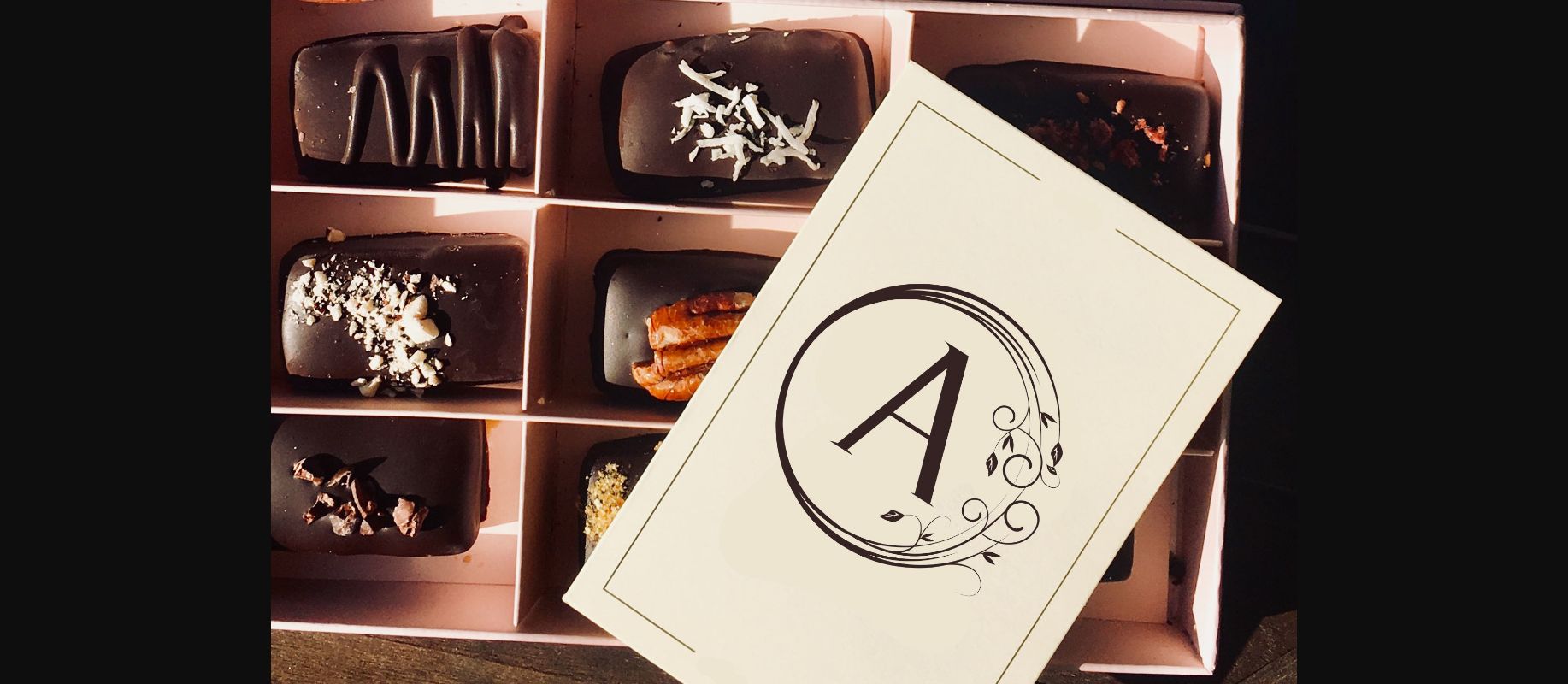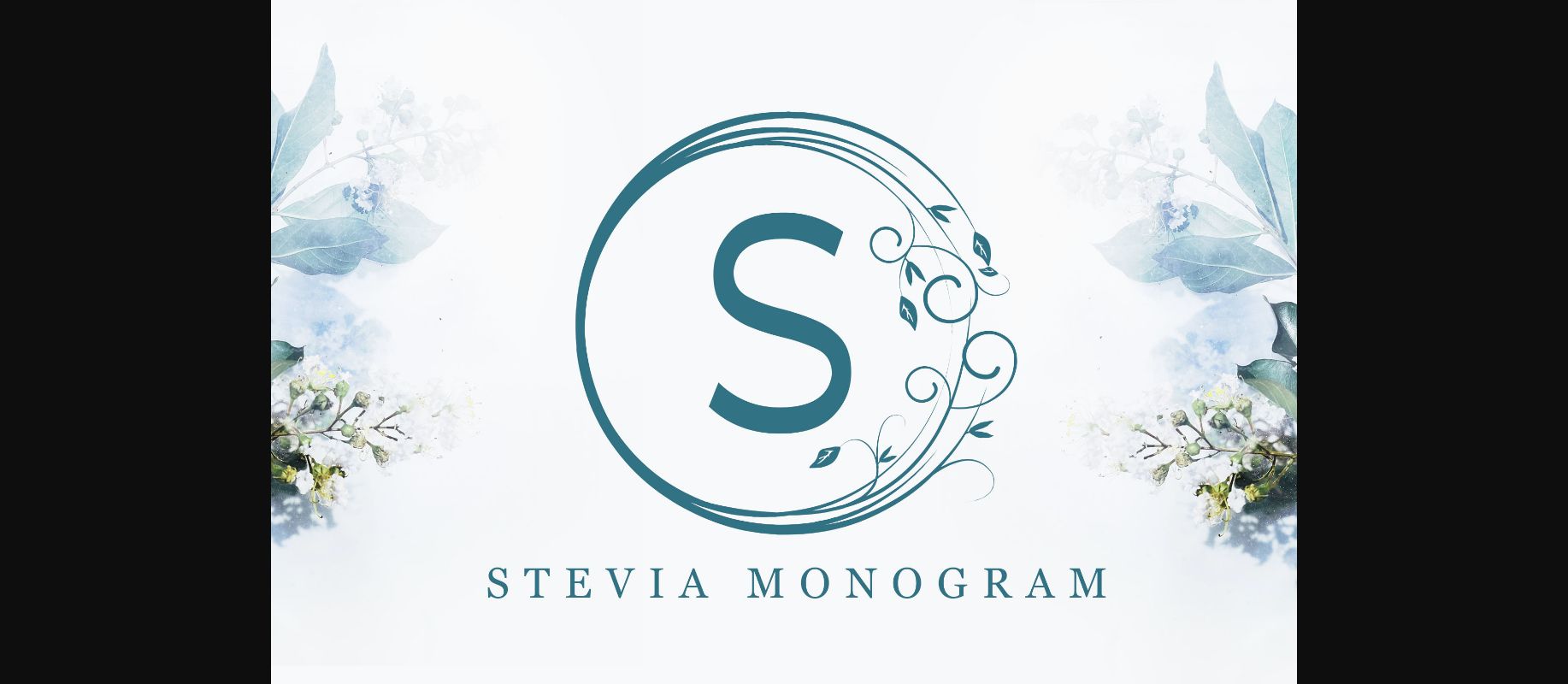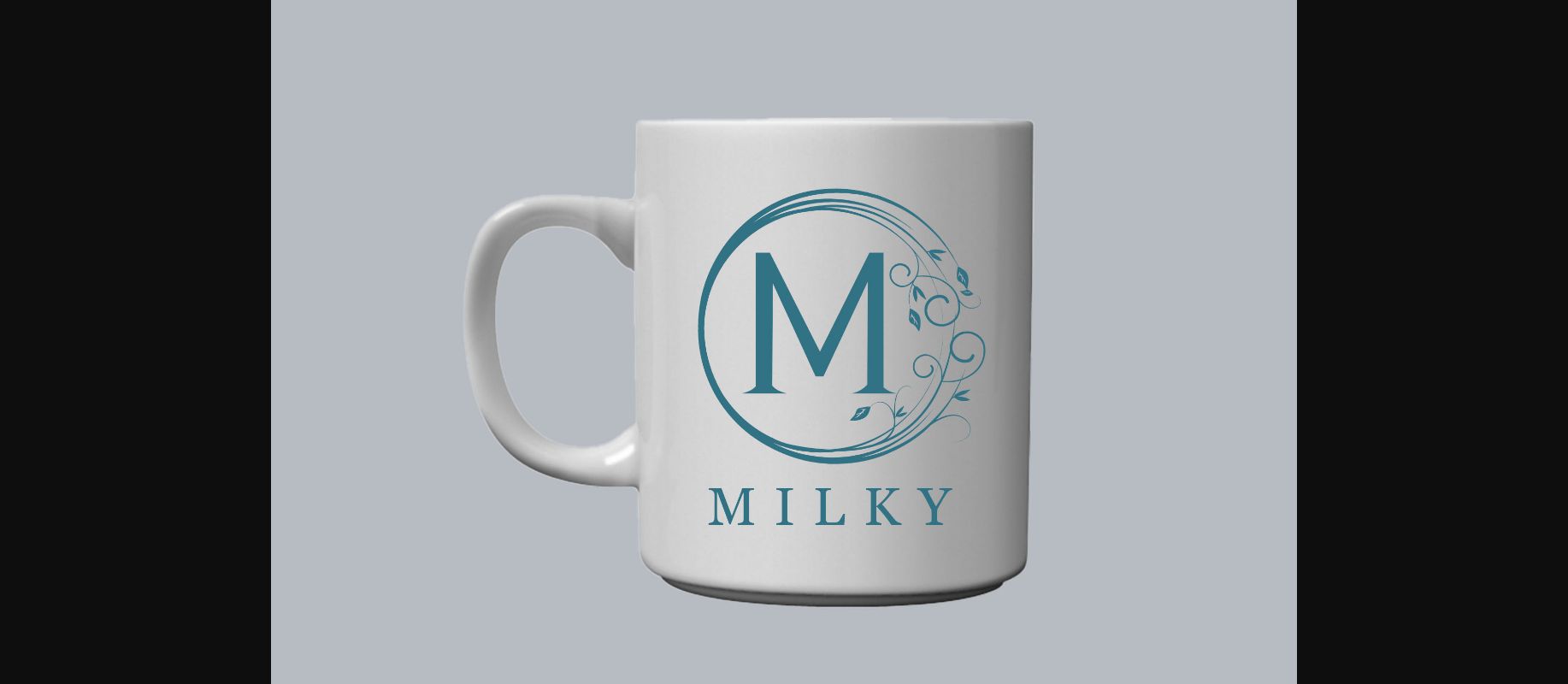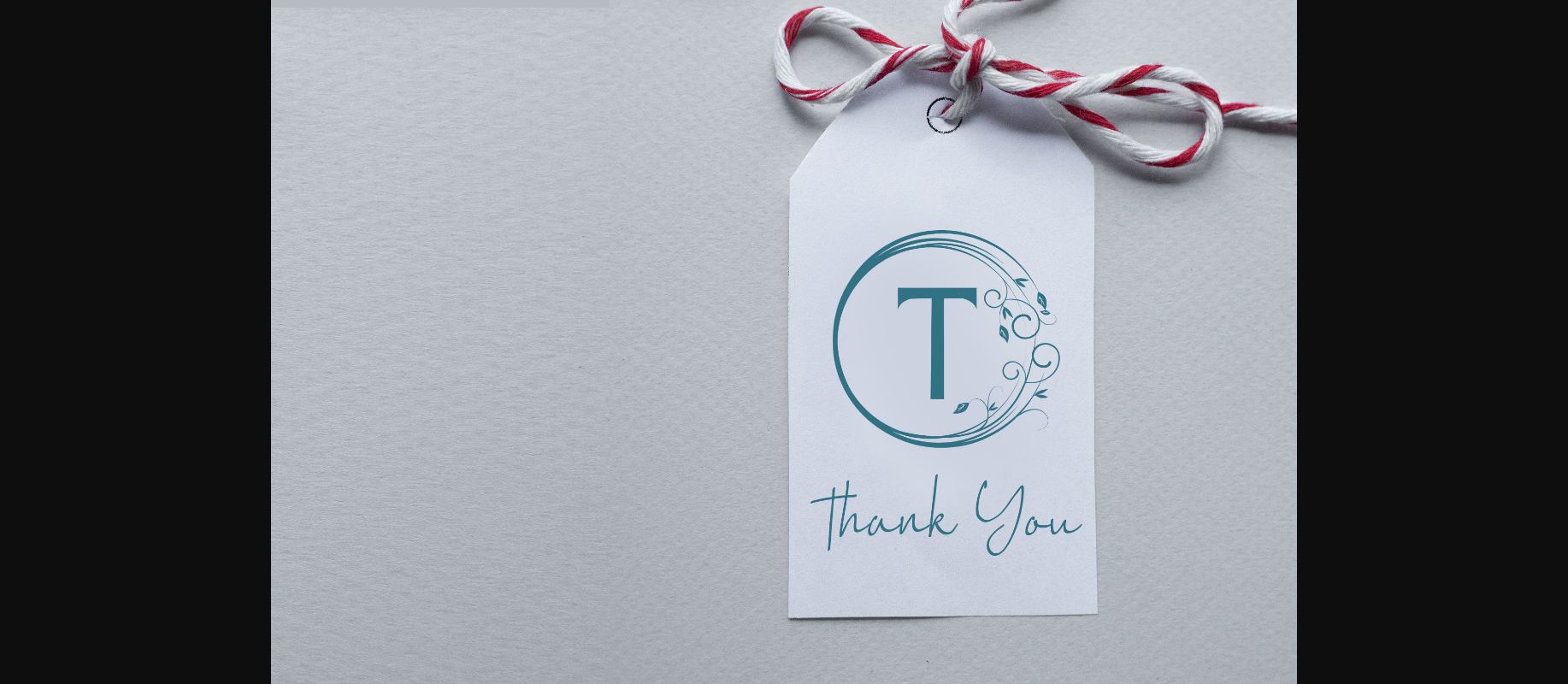
HomeDecorative FontsStevia Monogram Font Decorative Fonts Stevia Monogram Font FacebookXPinterestWhatsApp 1 of 6 ... Stevia Monogram Font Poster 2... Stevia Monogram Font Poster 3... Stevia Monogram Font Poster 4... Stevia Monogram Font Poster 5... Stevia Monogram Font Poster 6... About Stevia Monogram Font Stevia Monogram is a lovely and delicate decorative font. Fall for its ravishing style and use it to create gorgeous wedding invitations, beautiful stationary art, eye-catching social media posts, and much more! DOWNLOAD NOW People also explored Rose Couture Font The Queen Font Chubby Font Sweet Monogram Wreath Font People Silhouettes Font Bright Clouds Font Motereal Font Prinzella Font Angelina Script 307 0 TagsStevia Monogram Font Previous articleChristmas Joyful FontNext articleBaloen Font LEAVE A REPLY Cancel reply Comment: Please enter your comment! Name:* Please enter your name here Email:* You have entered an incorrect email address! Please enter your email address here Website: Save my name, email, and website in this browser for the next time I comment. Personal Use Free Salmoni Personal Use Free Read more about this font Talking on Personal Use Free Read more about this font Angola Beach Personal Use Free Read more about this font Gaboed Personal Use Free Read more about this font BLOG Free vs Paid Fonts: Why Investing in Premium Fonts Is Worth It Free vs Paid Fonts: Why Premium Fonts Are Worth It in 2025 The debate of free vs paid fonts continues in the design world. While... Top 7 Google Fonts Alternatives for Faster and Privacy-Friendly Web Design (2025) Best Fonts for YouTube Videos: Make Your Thumbnails Stand Out Top 10 Handwritten Fonts That Elevate Your Designs